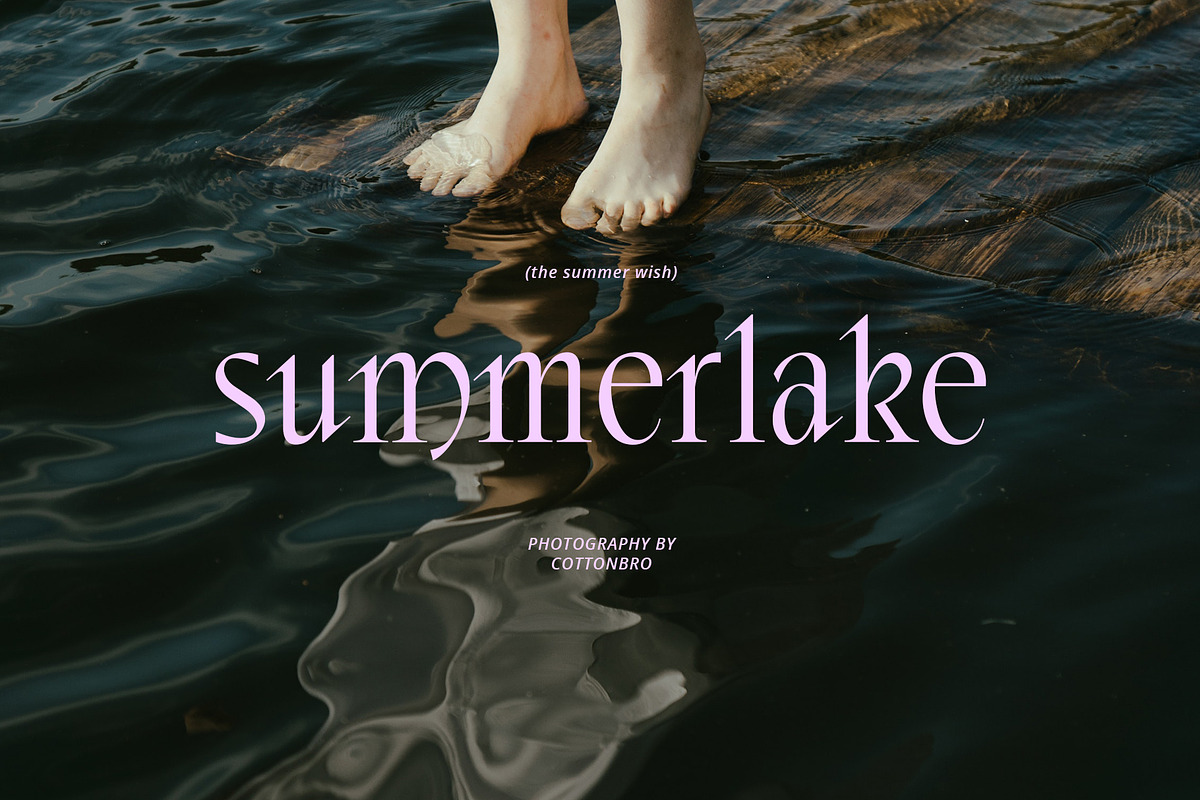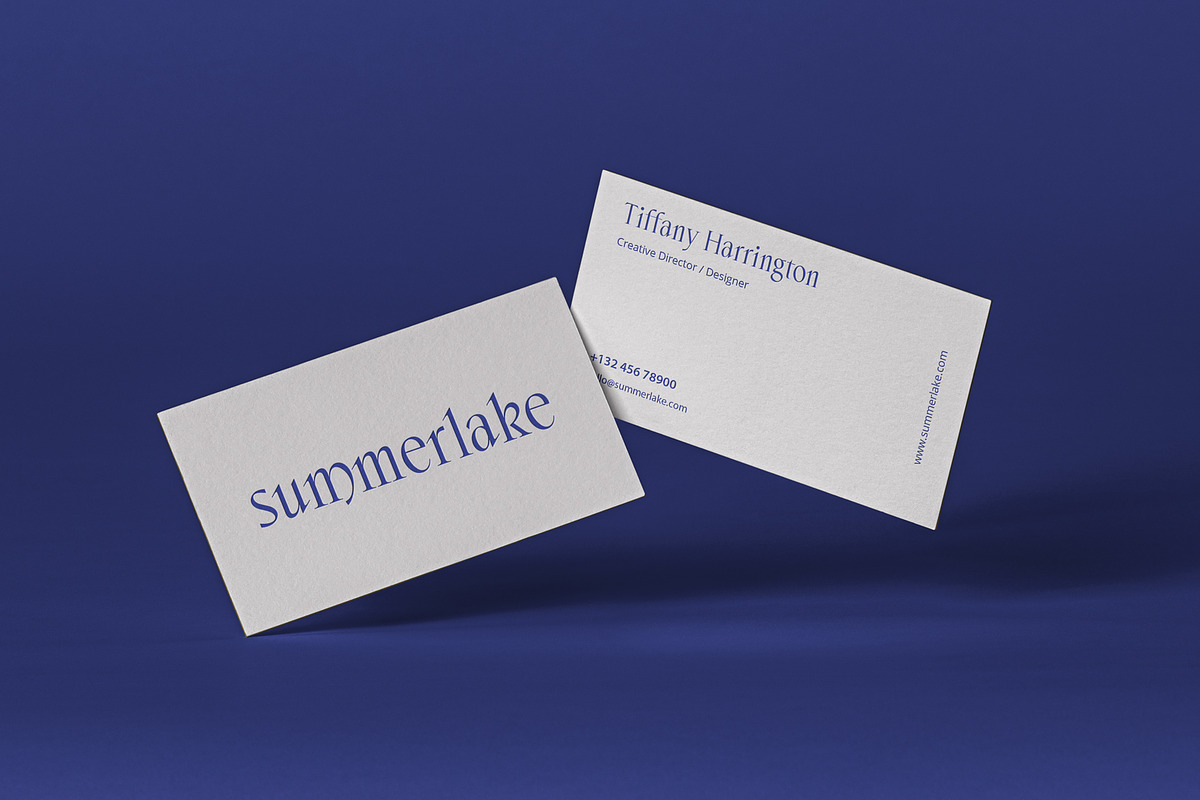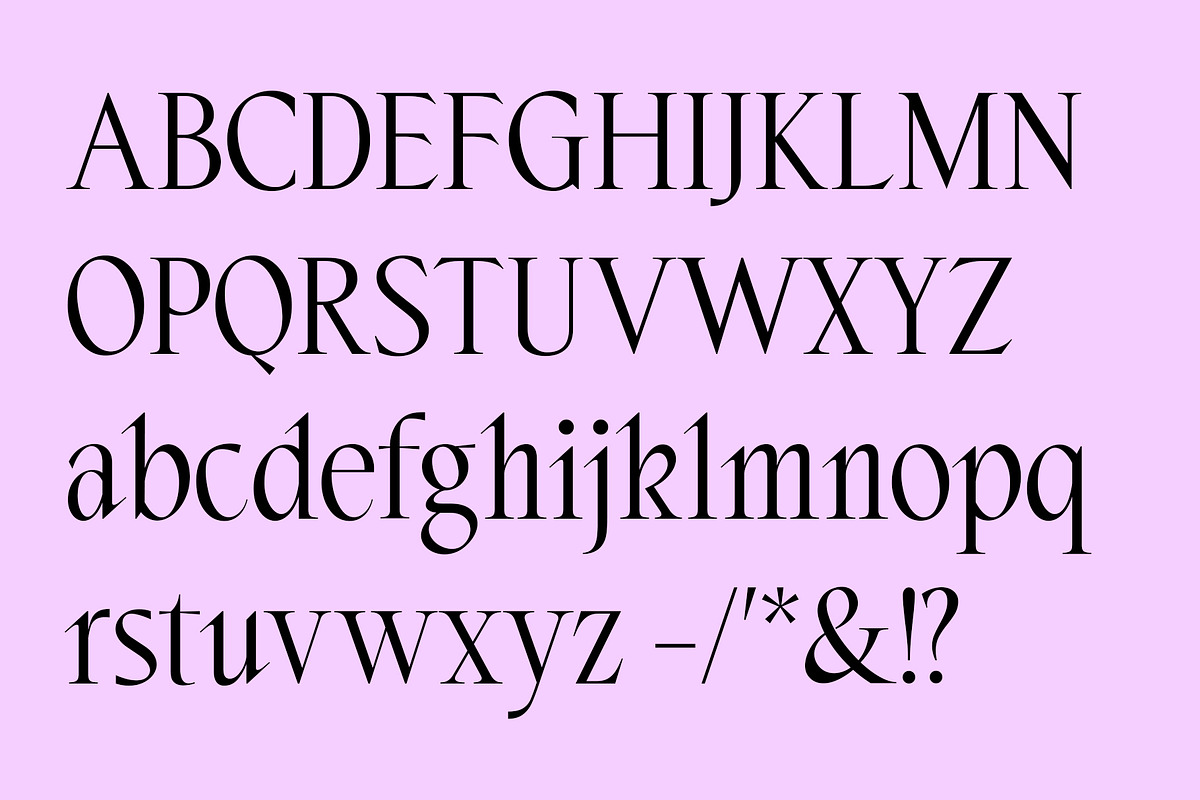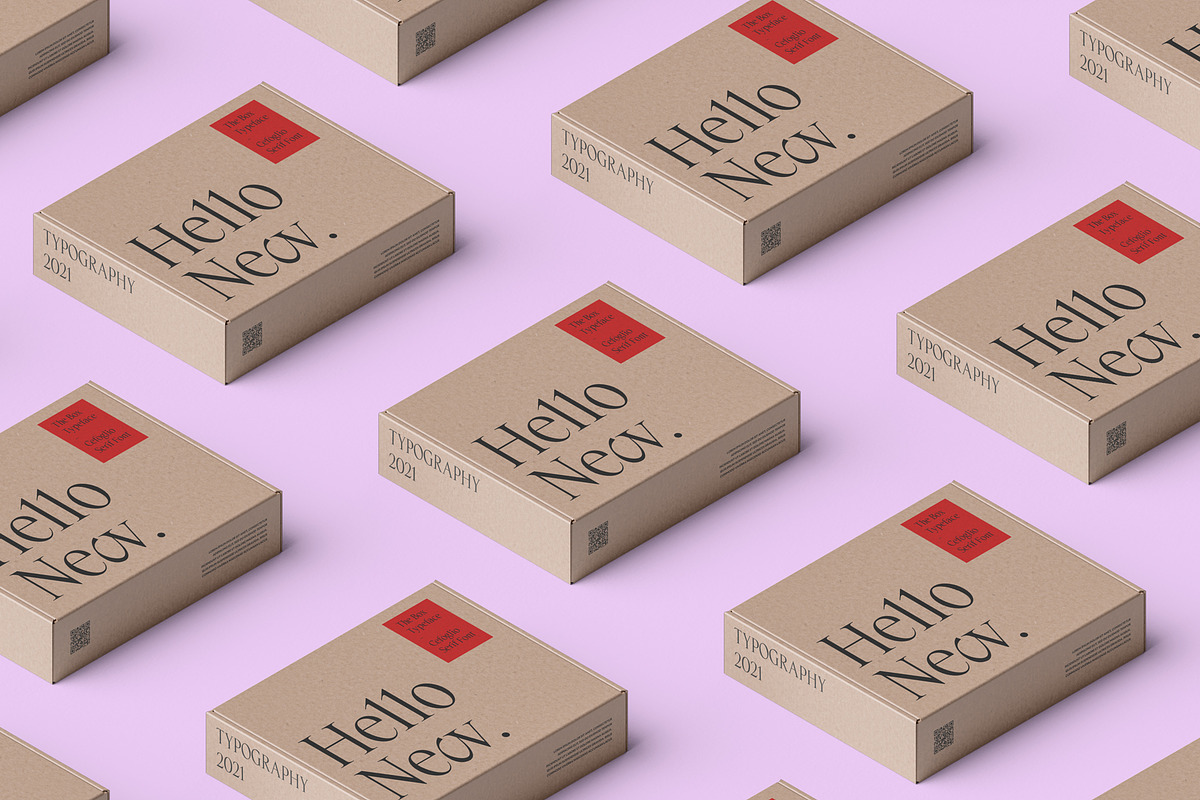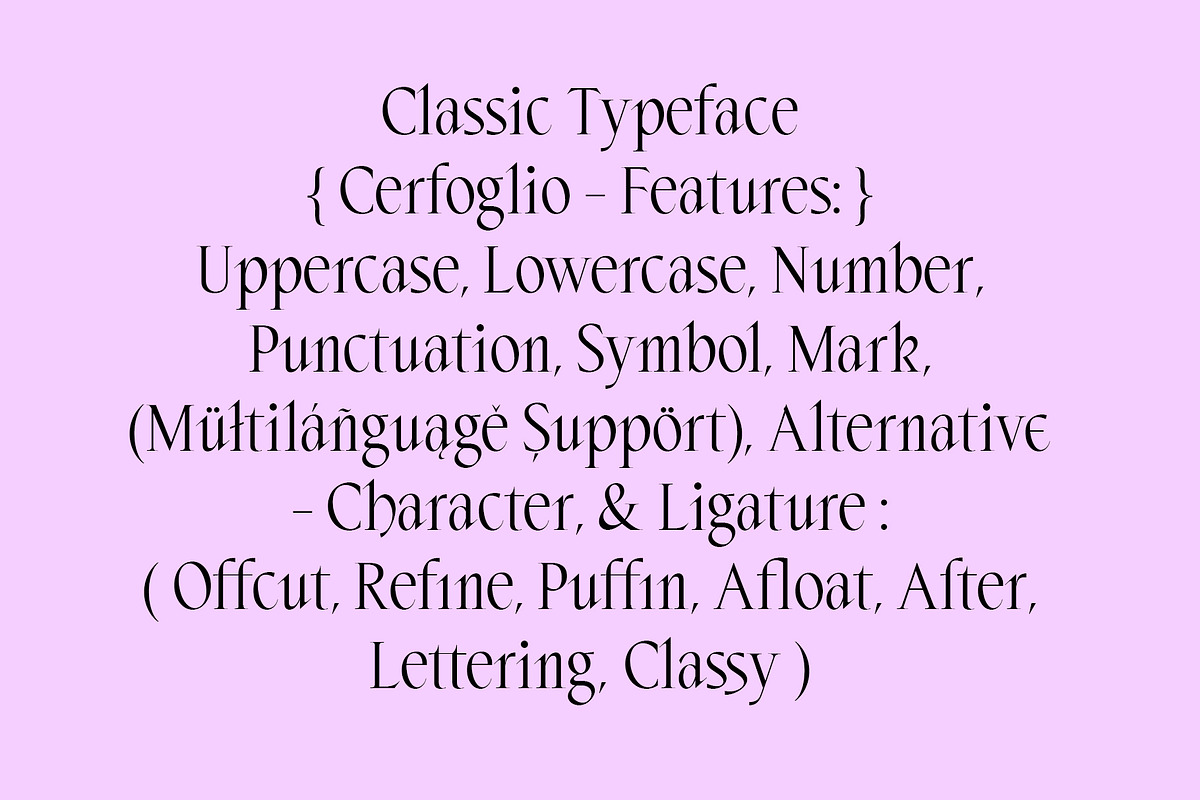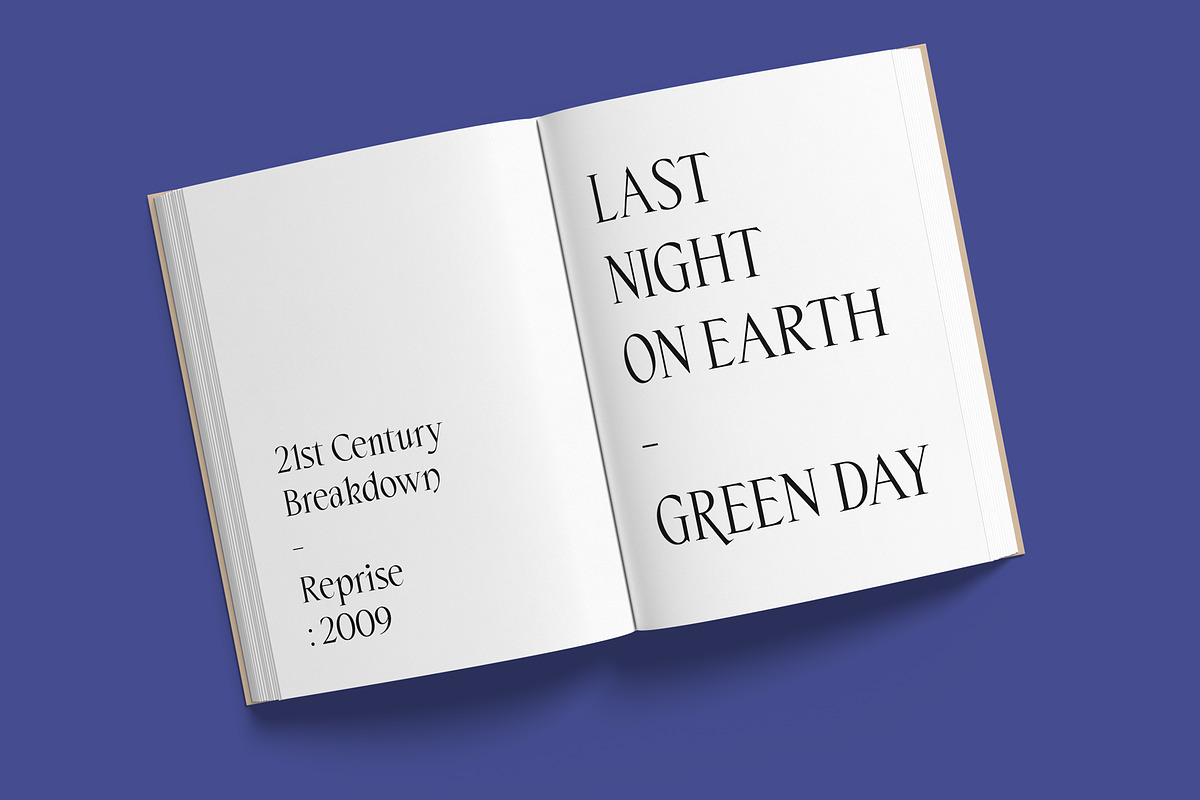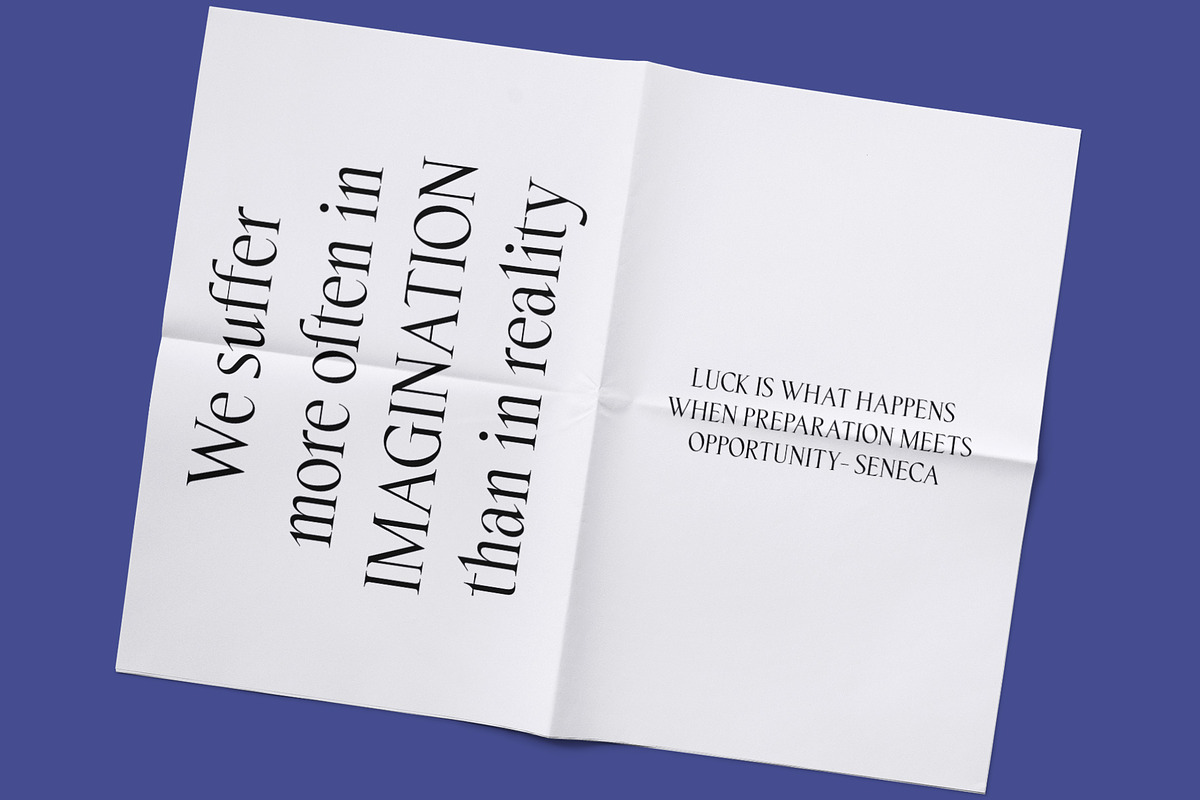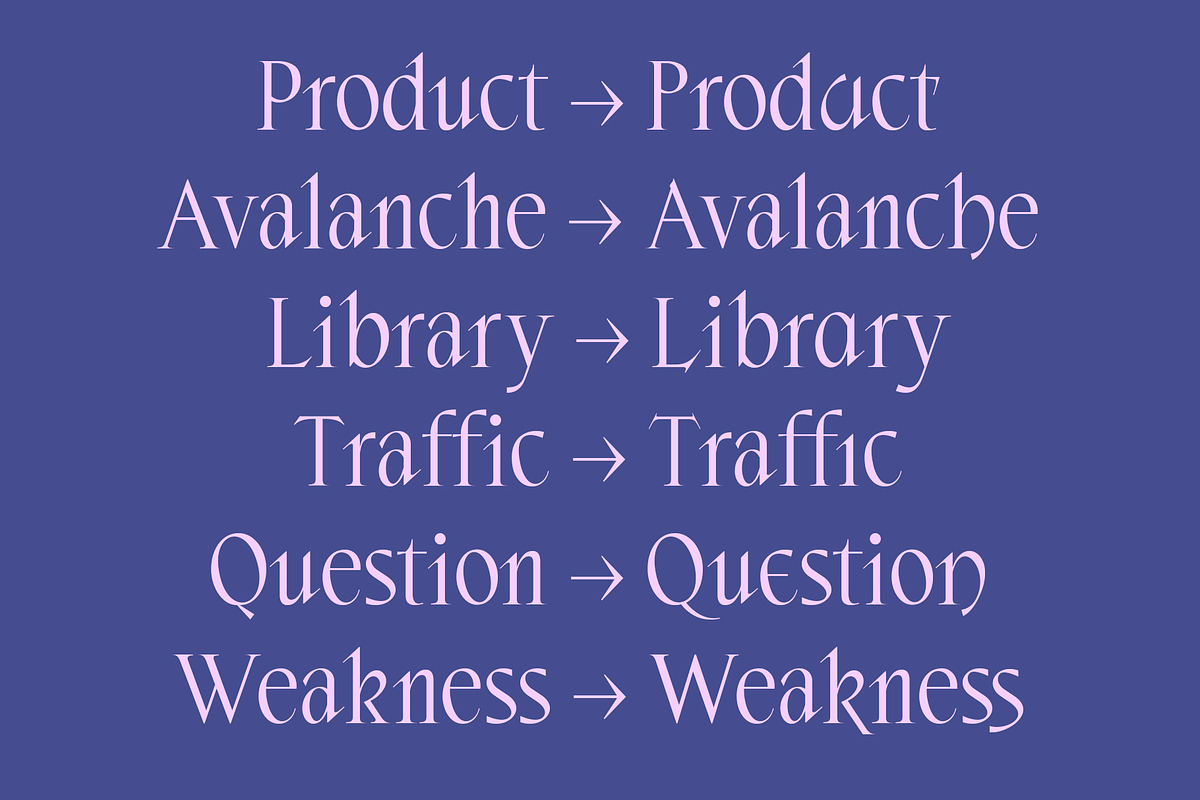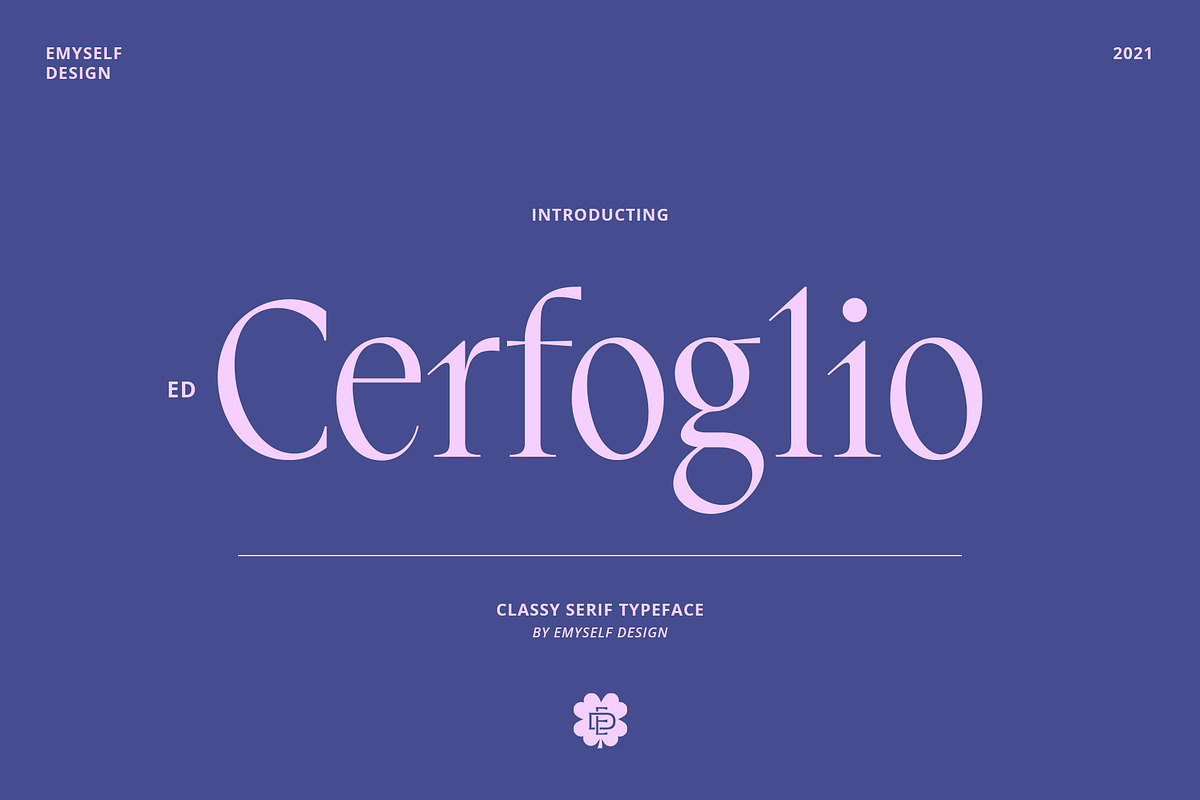
ED Cerfoglio - Classy Serif
Cerfoglio is a classy serif font. has a sharp edge and high contrast , this font is also equipped with a stylistic set, ligature, and multi-language support that makes this font easier and more stylish, when used or combined with other fonts.
This font is inspired by several typographic designs on social media, which are then created and designed to create a good character font that is easy to use for various graphic design needs. These fonts are perfect for cover designs, posters, UI, branding, fashion, logos, social media templates, packaging, etc.
- Punctuation and Marks
- Ligatures & Alternative Character